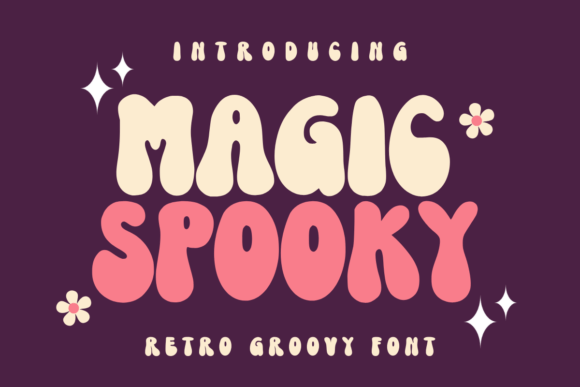
Introducing Magic Spooky Font, the captivating and nostalgic typeface that will bring your designs to life! Created by the talented Sakti Avellin, this retro groovy font is the perfect choice for those seeking a playful and cheery accent.
With its unique and eye-catching design, Magic Spooky Font is sure to capture the attention of anyone who lays eyes on it. Whether you're designing book covers, posters, packaging, merchandise, or logotypes, this font will add a touch of magic to your creations.
Imagine the possibilities of using Magic Spooky Font on your next project. Its versatility allows it to stand out in any context, making it the ideal choice for both professional and personal designs. Let your creativity run wild as you explore the endless opportunities this font has to offer.
But what sets Magic Spooky Font apart from the rest? It's not just about the aesthetics, although its retro vibes will transport you back in time. This font is specifically crafted for T-shirt printing, making it a must-have for anyone in the apparel industry. Its bold and captivating style will make your T-shirts stand out from the crowd, attracting attention and making a statement.
Not only does Magic Spooky Font excel in the world of fashion, but it also holds its own in various other design projects. Its versatility knows no bounds, allowing you to create stunning visuals across different mediums. From social media graphics to website banners, this font will leave a lasting impression on your audience.
But the benefits don't stop there. Magic Spooky Font is also incredibly easy to use, making it accessible to designers of all skill levels. Whether you're a seasoned professional or just starting out, this font will seamlessly integrate into your workflow, saving you time and effort.